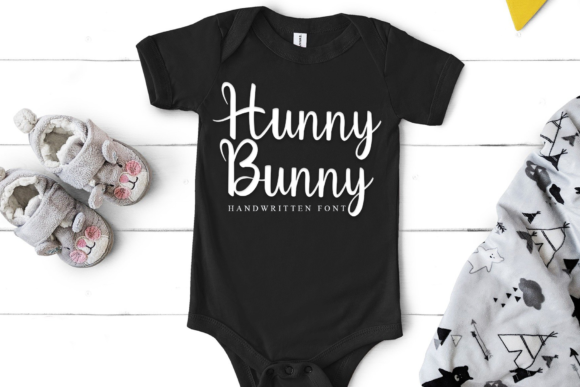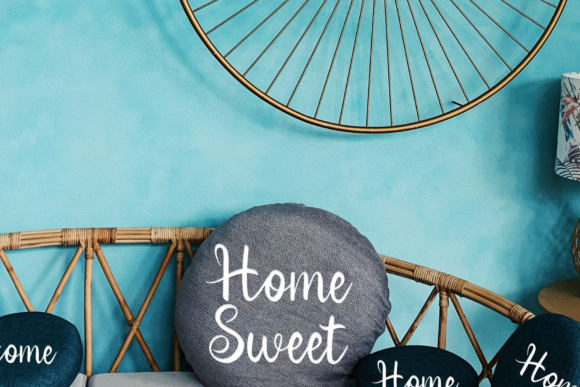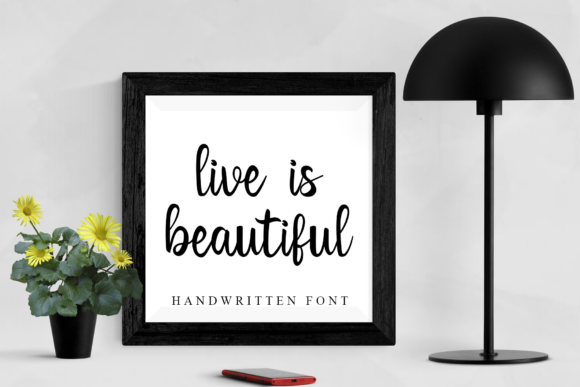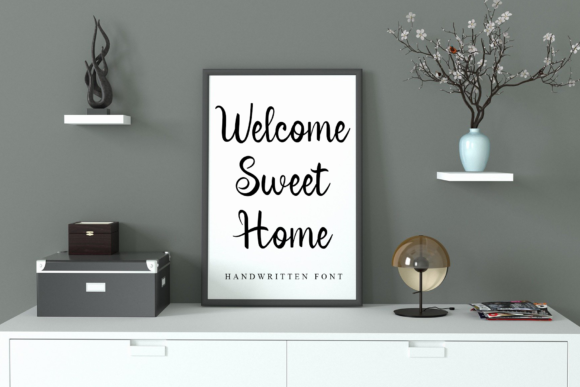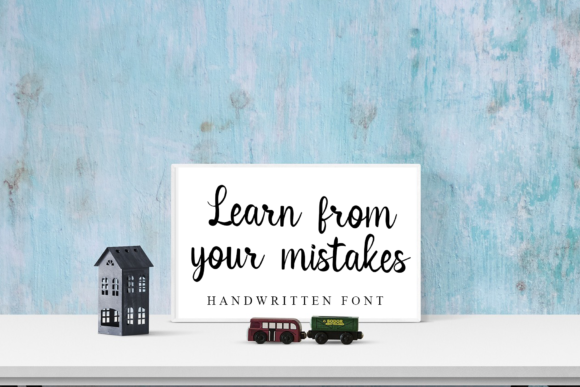
Hello Homework Font
About Hello Homework Font
Hello Homework is a cursive and elegant handwritten font. Its distinct and well balanced letters make this font a masterpiece. Fall in love with its incredibly versatile style and use it to create spectacular designs!